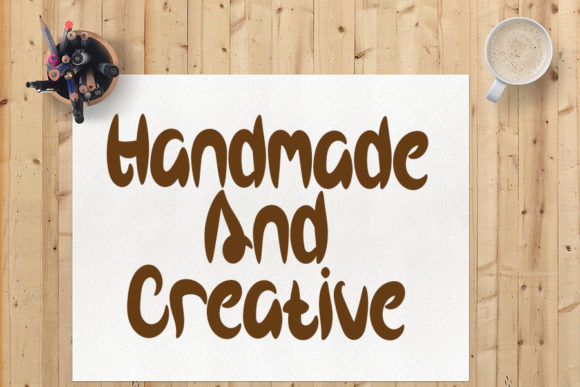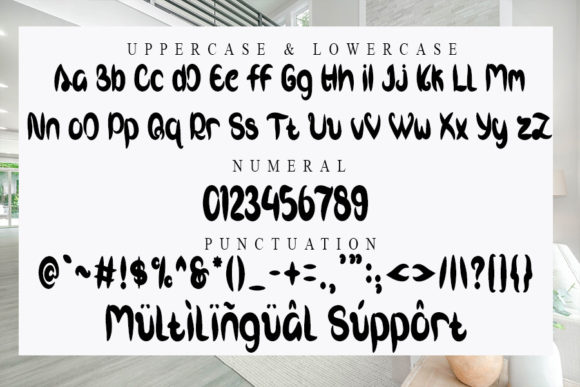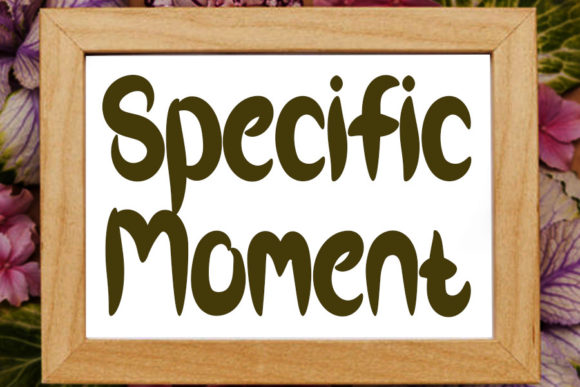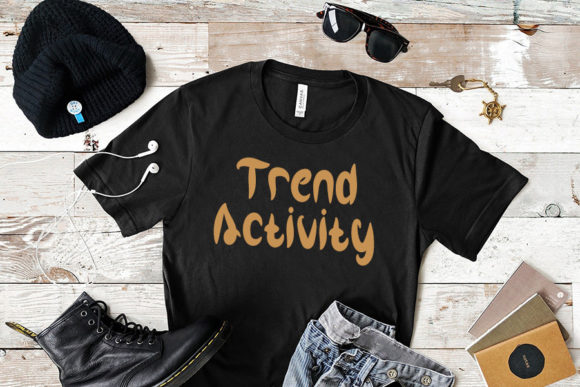
Vibes on Monday Font
About Vibes on Monday Font
Vibes On Monday is a bold and fun handwritten font. Use it to make your ideas even more realistic and create spectacular designs!